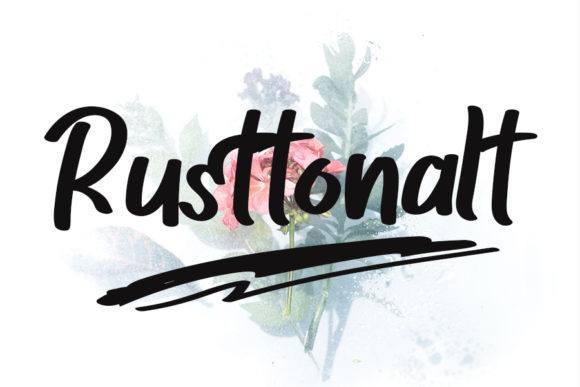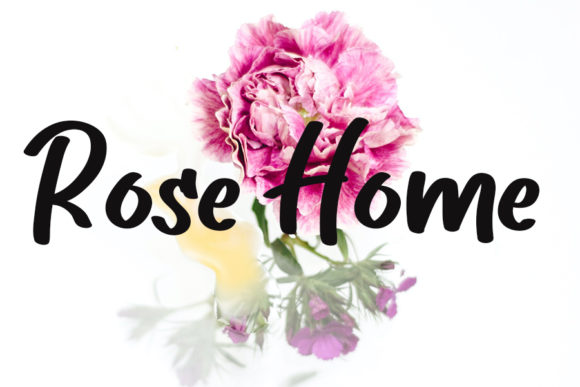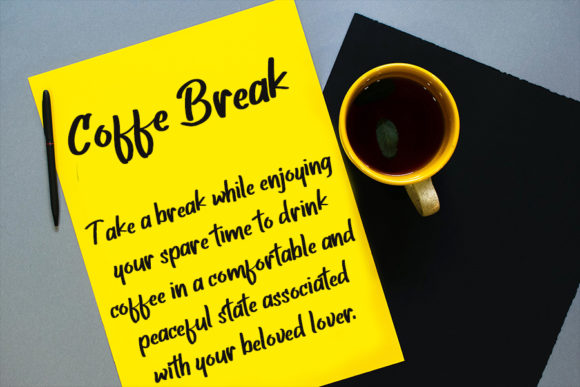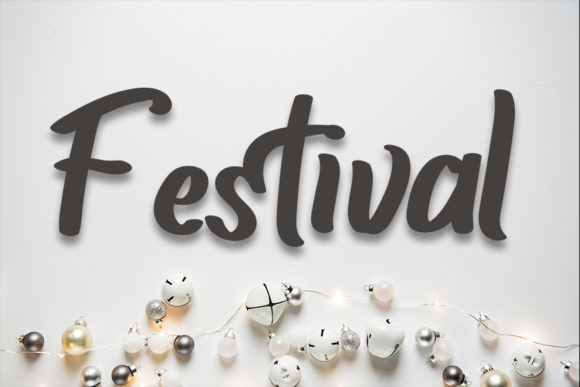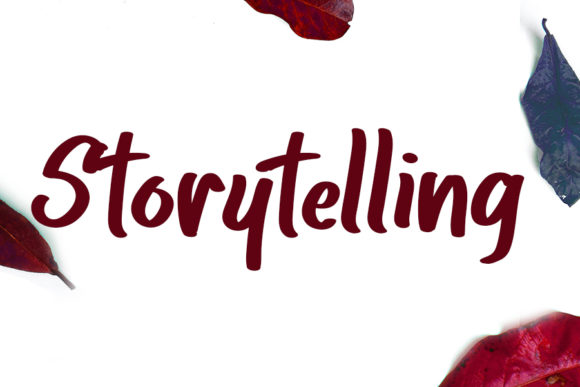
Rusttonalt Font
About Rusttonalt Font
“Rusttonalt” is a font that commands attention with its flowing and thick lettered style. Its bold strokes and unique design make it an irresistible choice for your creative projects. As you explore its versatility, you’ll quickly fall in love with its ability to transform ordinary designs into extraordinary masterpieces.
The distinctive feature of “Rusttonalt” lies in its ability to captivate the viewer’s gaze. The thick lettering adds a strong visual impact that demands to be noticed. Its flowing lines lend a sense of dynamism and energy to any design it graces, making it an ideal choice for projects that seek to make a bold statement.
The font’s versatility is a true asset, allowing you to explore a multitude of design directions. From crafting eye-catching headlines that pop off the page to creating attention-grabbing posters and banners, “Rusttonalt” is your companion in crafting designs that are nothing short of spectacular.
Embrace the unique charm of “Rusttonalt” as you embark on your creative journey. Discover the countless ways it can breathe life into your projects, transforming them into dynamic works of art that leave a lasting impression. With its thick lettering and flowing style, this font is a powerful tool in your creative toolkit, ready to elevate your designs to new heights of excellence.